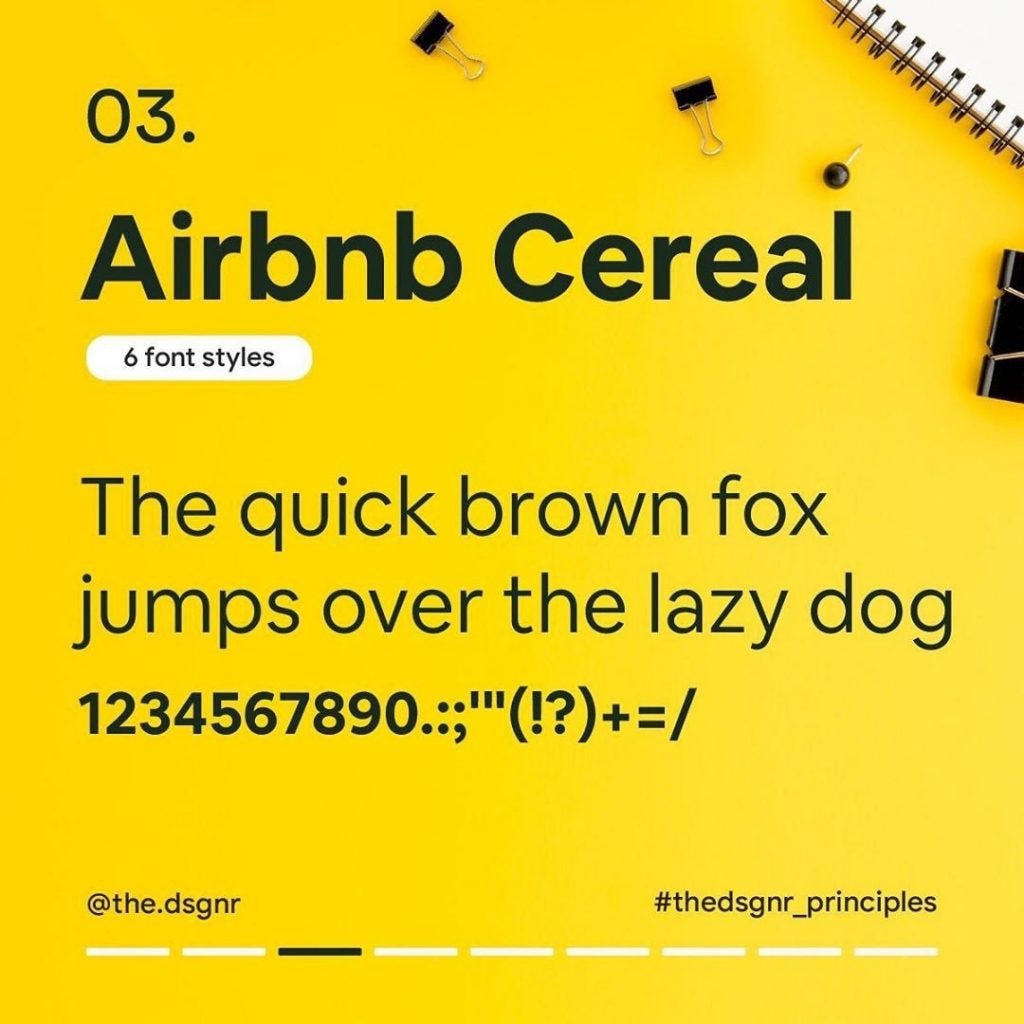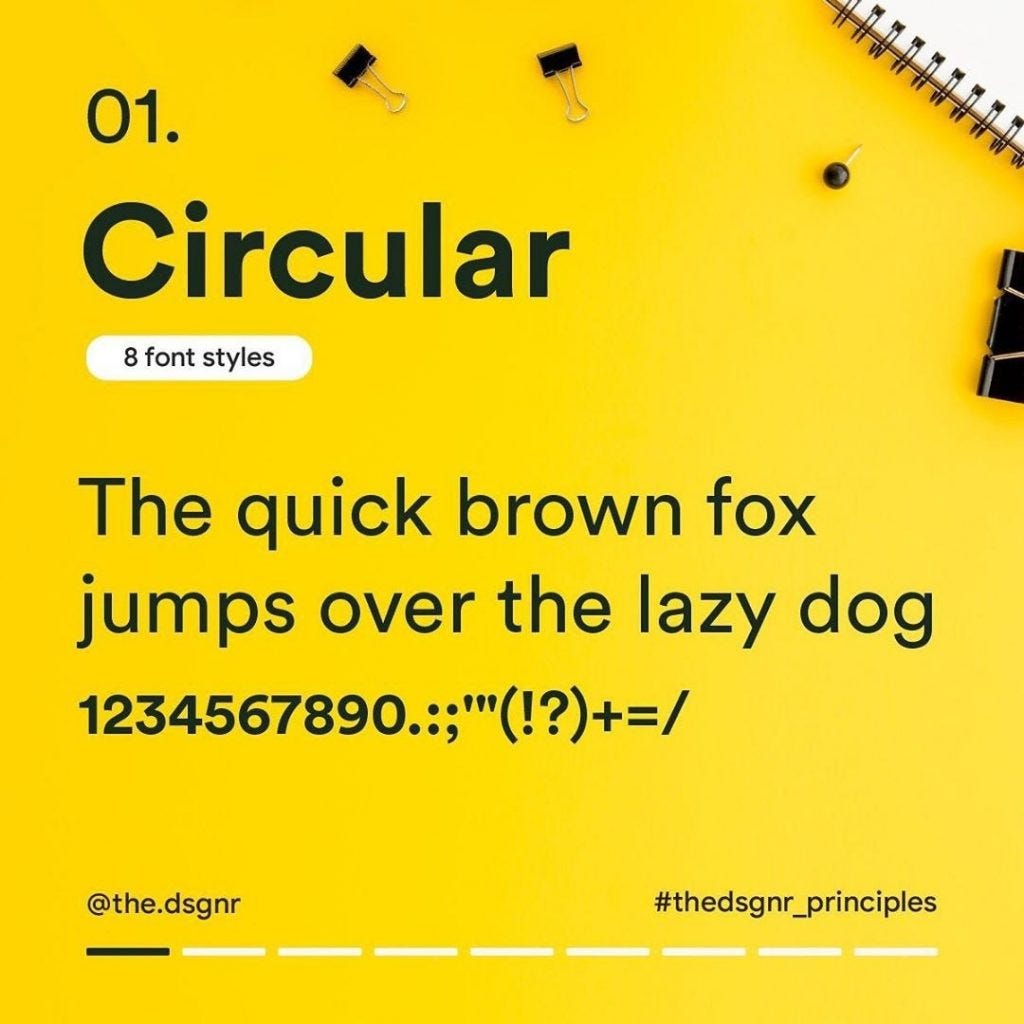
Cool Good Ui Fonts References. Making good use of sharp corners and thick edges, this pick is easy to. Motorless is rickety and imperfect.
Web looking for ui fonts? This story contributed to bay area black designers: Open sans is a humanist sans serif typeface designed by steve.
It has grown in popularity and become something like the “helvetica of the free. Making good use of sharp corners and thick edges, this pick is easy to. All resources are meticulously handpicked to.
Web Looking For Ui Fonts?
Click to find the best 16 free fonts in the ui style. Open sans is a humanist sans serif typeface designed by steve. Designed by steve matteson and commissioned by google, open sans is a.
Playfair Display Is A Serif Font With An Elegant, Modern Quality That Features Undertones Of Femininity.
Web list font name : Inter is a google font and easily the most popular ui design font. Motorless is rickety and imperfect.
Web The Best Free Fonts For Ui Design.
Mac apps = lucida grande. Web i tend to follow these rules: Web making the web more beautiful, fast, and open through great typography
Windows apps = segoe ui. This serif typeface makes for a stylish experience that. All the creative assets you need under one subscription!